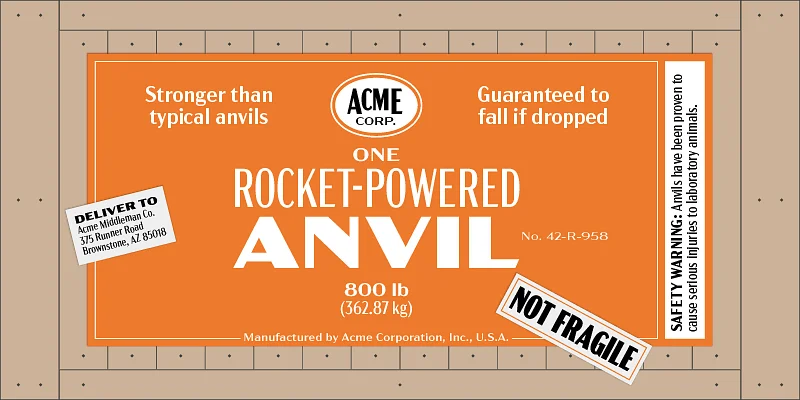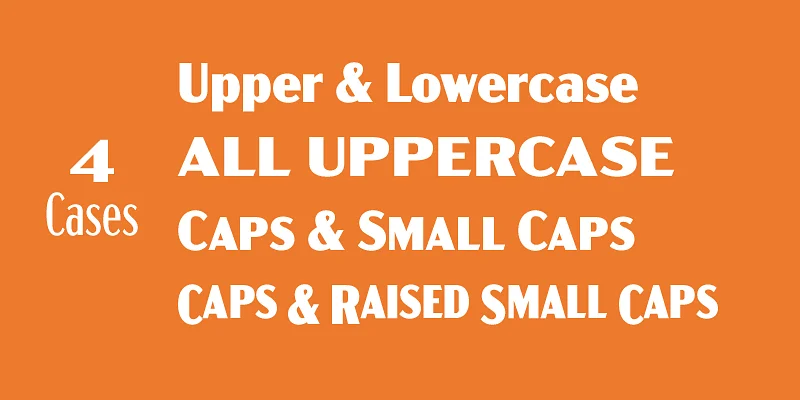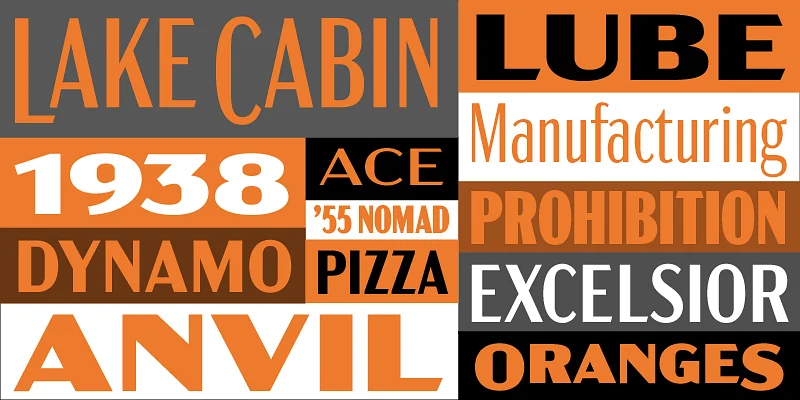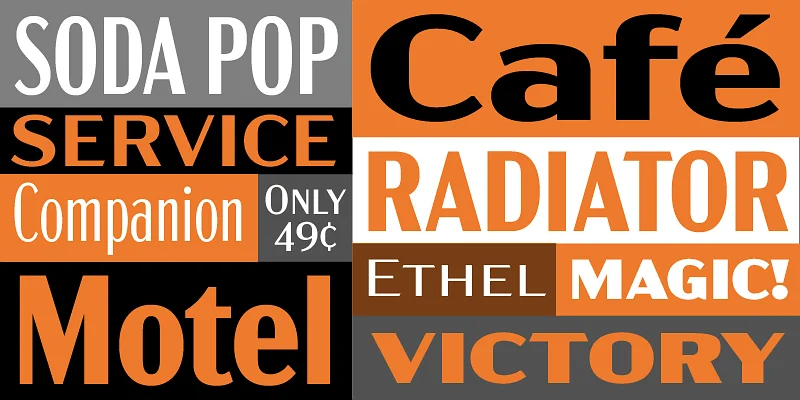
Acme Gothic Font
The Acme Gothic Font is perfect for vintage industrial branding, retro-inspired signage, classic American advertisements, old-school poster designs, nostalgic packaging systems, traditional manufacturing logos, heritage brand identities, authentic period graphics, vintage automotive branding, and timeless Americana communications.
What makes the Acme Gothic Font so exciting is its authentic capture of classic American industrial design with bold Gothic character that perfectly embodies the golden age of American manufacturing and commercial excellence. This iconic typeface features strong Gothic letterforms, industrial-strength construction, and vintage American design elements that create an unmistakable heritage identity perfect for brands seeking to communicate tradition, quality, and authentic American craftsmanship. The font's vintage personality and industrial heritage make it an exceptional choice for companies seeking to tap into nostalgic Americana, authentic manufacturing traditions, and classic American design aesthetics with genuine period authenticity.
The Acme Gothic Font family includes vintage variations and industrial alternates, featuring multiple weight options, classic Gothic styling, and period-appropriate design elements. Each variation maintains the signature vintage appeal while offering different levels of industrial strength and nostalgic expression, providing designers with extensive creative possibilities for crafting authentic heritage communications and classic American brand personalities.
This exceptional Acme Gothic Font represents the ultimate vintage industrial typography solution for brands who want to infuse their projects with authentic American heritage and classic manufacturing appeal that resonates with traditional values and quality craftsmanship. Whether you're developing heritage brand identities, creating vintage-inspired marketing materials, or designing classic American communications, this versatile vintage font delivers compelling results that connect with audiences seeking genuine American tradition and industrial authenticity.
The distinctive Gothic characteristics of Acme Gothic Font showcase masterful vintage typography design, with each letter featuring authentic industrial construction and classic American design elements that enhance its heritage credibility and period authenticity. The font's comprehensive character set includes uppercase and lowercase letters, numerals, vintage punctuation, and industrial symbols, ensuring complete functionality for diverse heritage projects and authentic American applications.
Specifically designed for both digital and print vintage applications, this remarkable font maintains its authentic Gothic character and industrial heritage across all sizes and formats. From large-scale vintage signage to detailed heritage packaging, Acme Gothic Font performs exceptionally while preserving its distinctive American personality and classic industrial appeal.